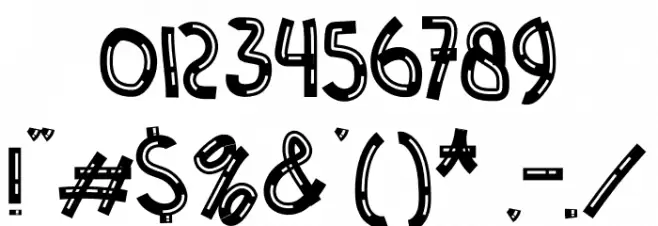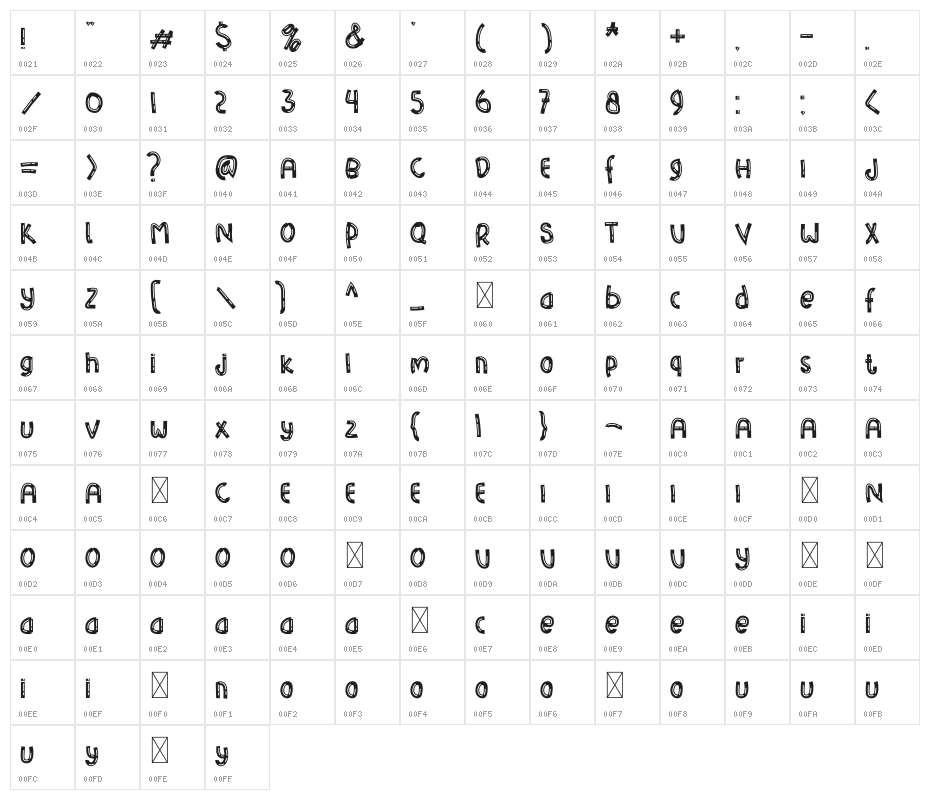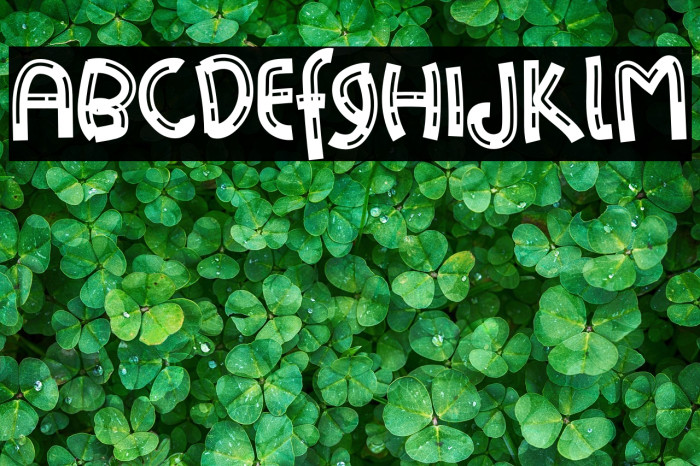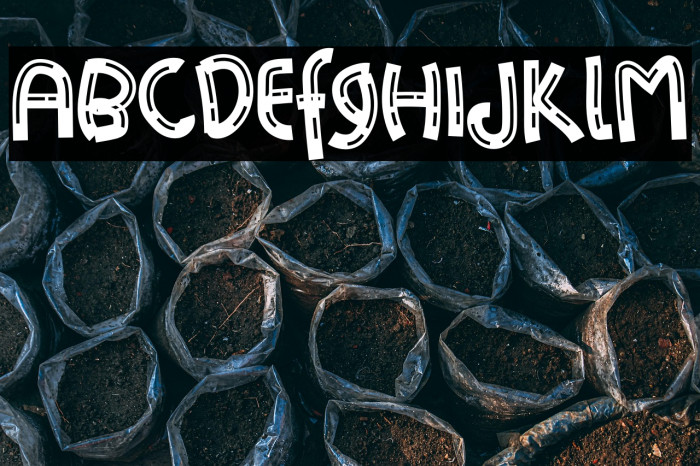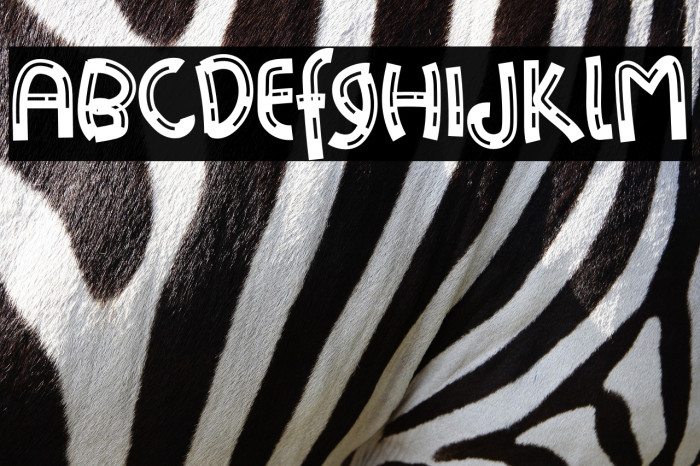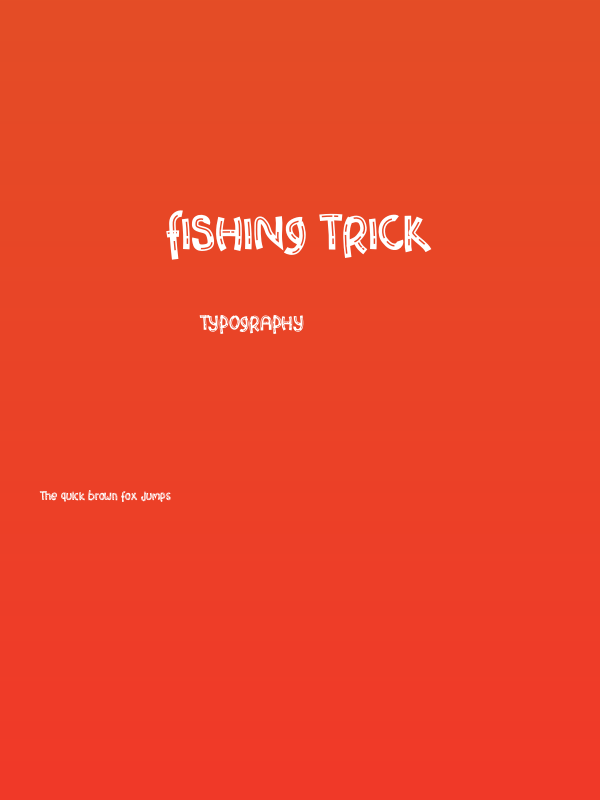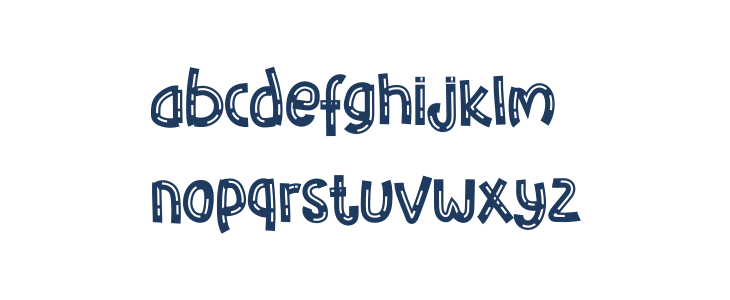
Fishing Trick Font
Fishing Trick Description
This playful and whimsical font features bold, rounded characters with a unique, hand-drawn appearance. Each letter is outlined, giving it a three-dimensional effect, and the strokes vary in thickness, adding to its dynamic and lively feel. The font is characterized by its decorative style, making it ideal for creative and informal projects. The characters are slightly tilted, enhancing its quirky and fun personality. The numbers and special characters maintain the same playful aesthetic, ensuring consistency throughout the font set.
| Overall Style | Whimsical and playful |
| Use Case | Logos, Posters, Invitations |